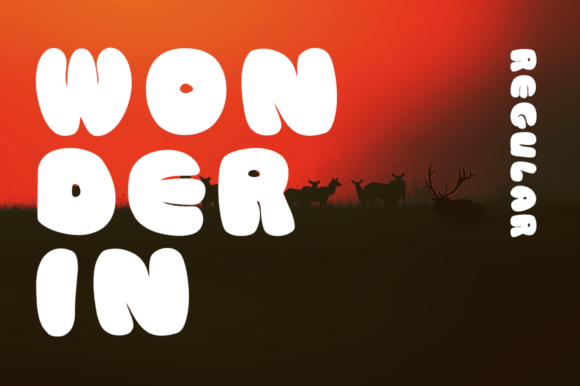
Introduce yourself to the wonderous world of Wonderin, where imagination takes flight and your designs soar above the ordinary. Wonderin Font, a captivating display font, is your go-to for making a bold statement that's sure to leave a lasting impression. Its balloon-shaped letters, reminiscent of playful childhood memories, will infuse your creations with a touch of whimsy and lightheartedness.
Whether you're crafting a striking logo, establishing a distinct brand identity, scribbling heartfelt notes, or embarking on any other creative endeavor that calls for a contemporary touch, Wonderin Font has got you covered. Its versatility knows no bounds, effortlessly adapting to a myriad of design styles.
But there's more to Wonderin than just its aesthetic charm. It's meticulously crafted to be as user-friendly as it is visually stunning. Experience the effortless flow of its letterforms, ensuring seamless integration into any design concept. With Wonderin Font, you're not just adding text; you're weaving a tapestry of imagination and delight.